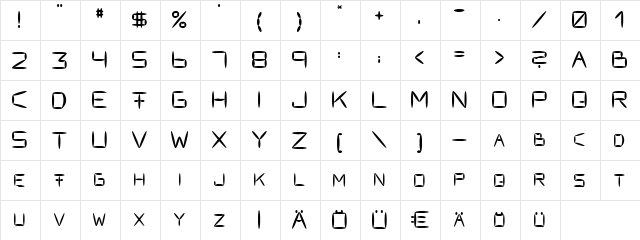
Fracksausen Regular
Design Context for Fracksausen Typeface
Fracksausen takes a measured approach to typography — its balanced proportions and neutral character make it a reliable workhorse for both digital and print work.